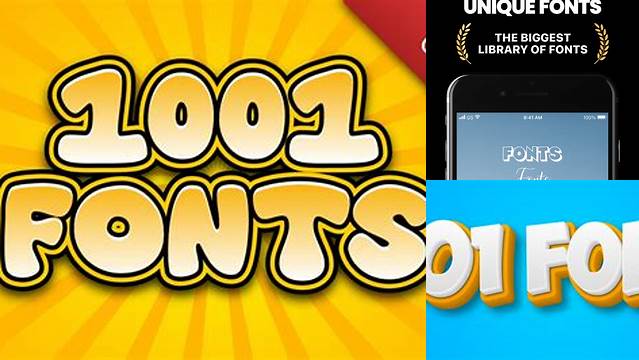
Unlock Your IPhone's Font Potential With 1001 Fonts
Hey guys! Ever looked at your iPhone and thought, "Man, this font is kinda boring?" We've all been there. You see those super cool text styles on social media, in design apps, or maybe even just on a friend's phone, and you wish you could rock them too. Well, guess what? You totally can! Today, we're diving deep into the awesome world of how to use 1001 Fonts on iPhone, and trust me, it’s easier than you think. We’ll break down everything from finding those killer fonts to actually getting them onto your device and using them in your favorite apps. So, buckle up, because your iPhone's text game is about to get a serious upgrade!
Exploring the Vast Universe of 1001 Fonts for iPhone Customization
Alright, first things first, let's talk about the sheer volume of fonts available through sources like 1001 Fonts. It's not just a few measly options; we're talking about thousands upon thousands of diverse typefaces. Whether you're into classic serifs for a touch of elegance, bold sans-serifs for a modern vibe, quirky handwritten styles for a personal touch, or decorative fonts for that special flair, 1001 Fonts has got your back. This massive library is a goldmine for anyone looking to personalize their digital experience. Imagine being able to choose a font that perfectly matches your mood for a social media post, a creative project, or even just your daily text messages. The power to express yourself through typography is immense, and understanding how to access and implement these styles on your iPhone is key. We're going to guide you through the process, ensuring you can navigate this extensive collection and find exactly what you're looking for, making your iPhone truly unique.
Mastering Font Styles: Beyond Basic Installation for iPhone Users
Okay, guys, installing fonts is just the beginning. When we talk about how to use 1001 Fonts on iPhone, it's also about understanding the variety of styles you can achieve and how to select the best ones for your needs. 1001 Fonts offers a spectrum, from the elegant flow of script fonts to the clean lines of minimalist sans-serifs. Think about the context: are you designing a birthday invitation? A handwritten script might be perfect. Crafting a professional email signature? A refined serif or a modern sans-serif would be more appropriate. The key is to explore the categories and styles offered on the 1001 Fonts website. Look for fonts that are specifically marked as free for personal use or commercial use, depending on your project. Many fonts come with different weights (light, regular, bold, black) and styles (italic). Mastering these variations allows you to create visual hierarchy and add depth to your text, even within the limitations of certain apps. Don't be afraid to experiment with pairing different font families to see what looks good together.
Finding Free Fonts on 1001 Fonts: Budget-Friendly Elegance
One of the biggest draws of services like 1001 Fonts is the abundance of free fonts. This is a game-changer for students, hobbyists, or anyone on a budget who still wants their iPhone's text to look sharp. When browsing the site, make sure to pay attention to the licensing information for each font. Many fonts are free for personal use, meaning you can use them for your own projects, social media, or personal notes. If you plan to use a font for commercial purposes (like a business logo or marketing materials), you'll need to ensure the font's license explicitly allows for commercial use. 1001 Fonts usually makes this information clear. Finding these gems means you can download, install, and use a vast array of typographic styles without spending a dime. It's all about smart browsing and understanding the usage rights. We'll cover how to download and install these free treasures shortly, so you can start beautifying your iPhone's output immediately.
Understanding Font Licensing: Personal vs. Commercial Use on iPhone
This is a super important point, especially when you're diving into how to use 1001 Fonts on iPhone for more than just personal doodles. Font licensing dictates how you can legally use a particular typeface. Most fonts on 1001 Fonts will fall into categories like 'Free for Personal Use' or 'Free for Commercial Use'. If a font is free for personal use, it means you can use it on your iPhone for things like texting, journaling, or personal social media posts. However, if you were to use that font in a logo for your business, on a website you're selling things from, or in printed marketing materials, you'd be violating the license. 'Free for Commercial Use' fonts give you more freedom, allowing you to incorporate them into business projects. Always double-check the specific license for each font you download. Sometimes, a font might offer a 'desktop' license (often free for personal use) and a separate 'commercial' or 'web' license that requires payment. Respecting these licenses is crucial to avoid legal issues and support the font designers who create these amazing tools.
The Enduring Appeal of Custom Typography on iOS Devices
Ultimately, the enduring appeal of custom typography on iOS devices, like the iPhone, stems from the fundamental human desire for personalization and self-expression. In a world where devices are extensions of ourselves, being able to dictate the look and feel of our digital interactions – from the way we text to the way we design graphics – is incredibly empowering. Resources like 1001 Fonts provide the raw materials, while apps and iOS itself offer the framework. Mastering how to use 1001 Fonts on iPhone isn't just a technical process; it's about creative control. It allows users to move beyond generic defaults and craft a digital aesthetic that truly resonates with their identity. This ability to customize, to make something uniquely yours, is a powerful draw that ensures custom typography will remain a beloved feature of the iOS experience for years to come.